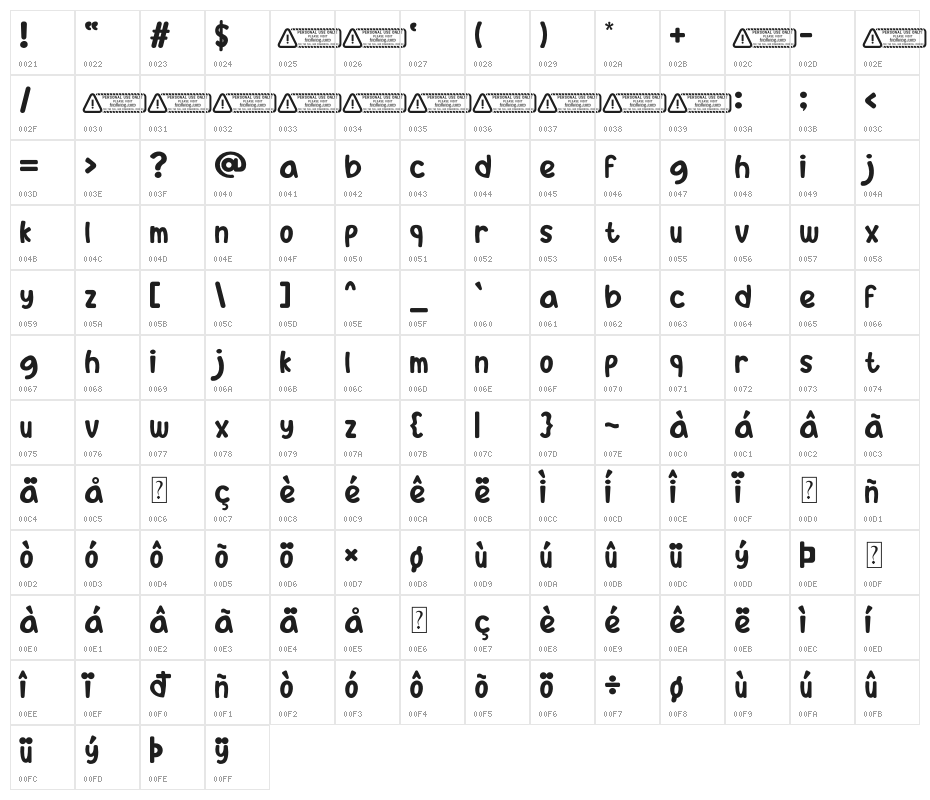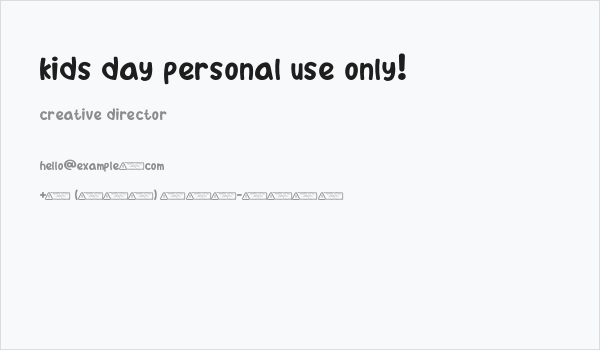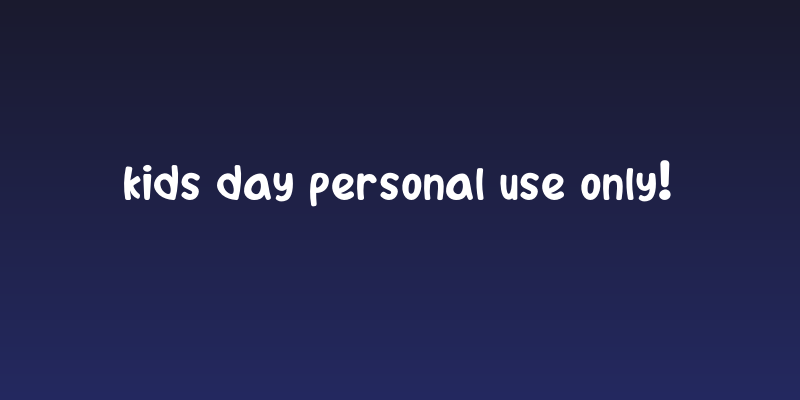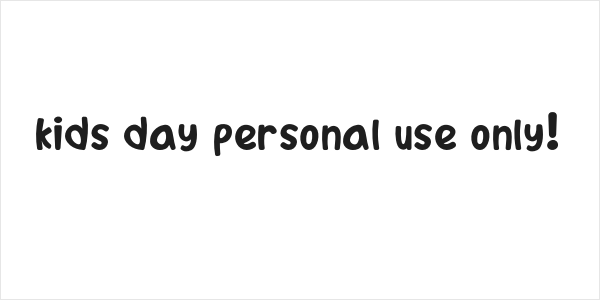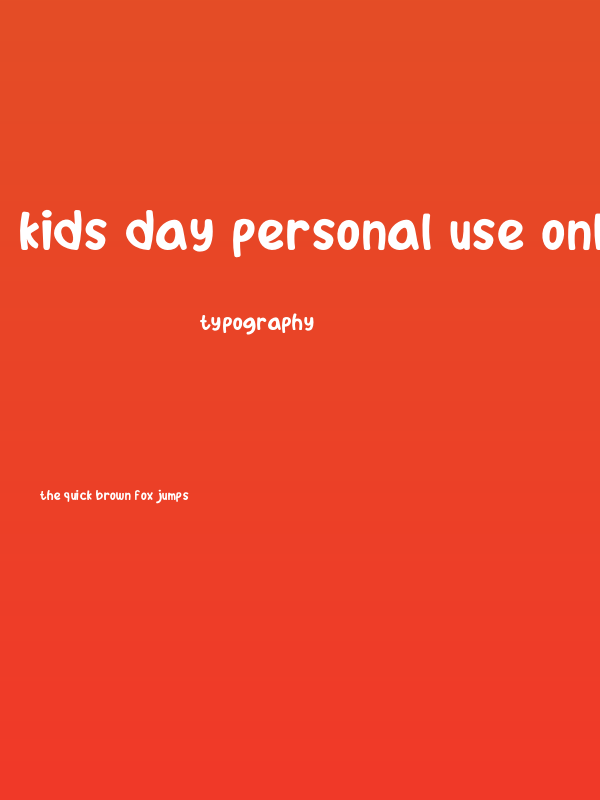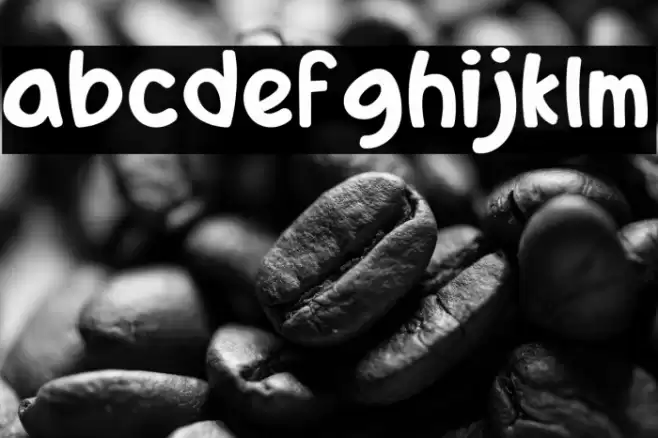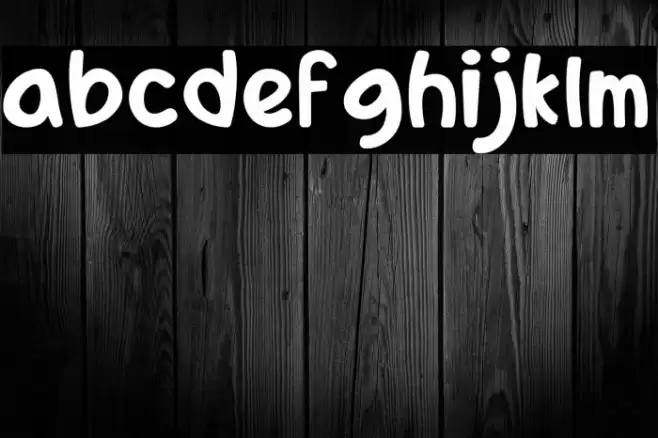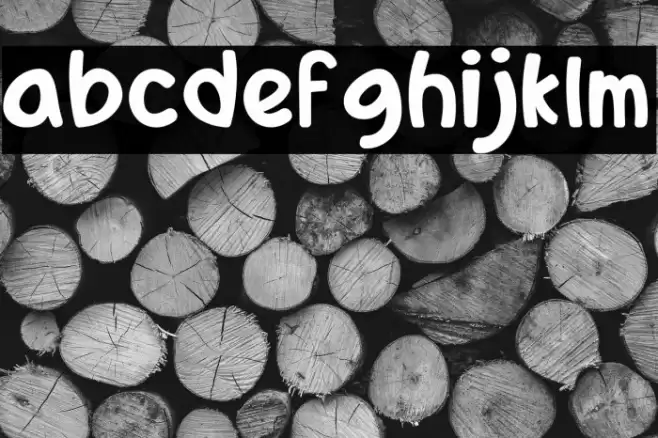
Kids Day PERSONAL USE ONLY! Font
Kids Day PERSONAL USE ONLY! Description
This playful and whimsical font features rounded, bold letters with a friendly and approachable style. The characters are slightly irregular, giving them a hand-drawn appearance that adds to their charm. The font is designed to be fun and engaging, making it ideal for projects aimed at children or for any design that requires a lighthearted touch. The uppercase and lowercase letters maintain a consistent style, with smooth curves and a uniform thickness that ensures readability. The special characters complement the overall design, maintaining the same playful aesthetic.
| Overall Style | Playful |
| Use Case | Headlines, Logos, Children's materials |
| Proposed Projects | Ideal for children's books, educational materials, playful branding, and party invitations. |